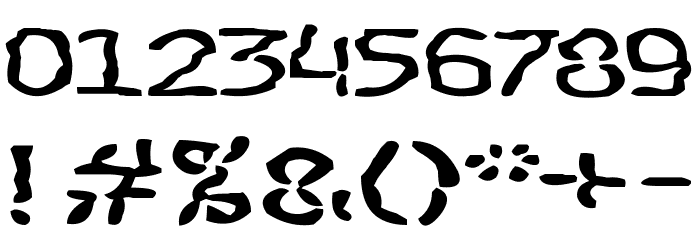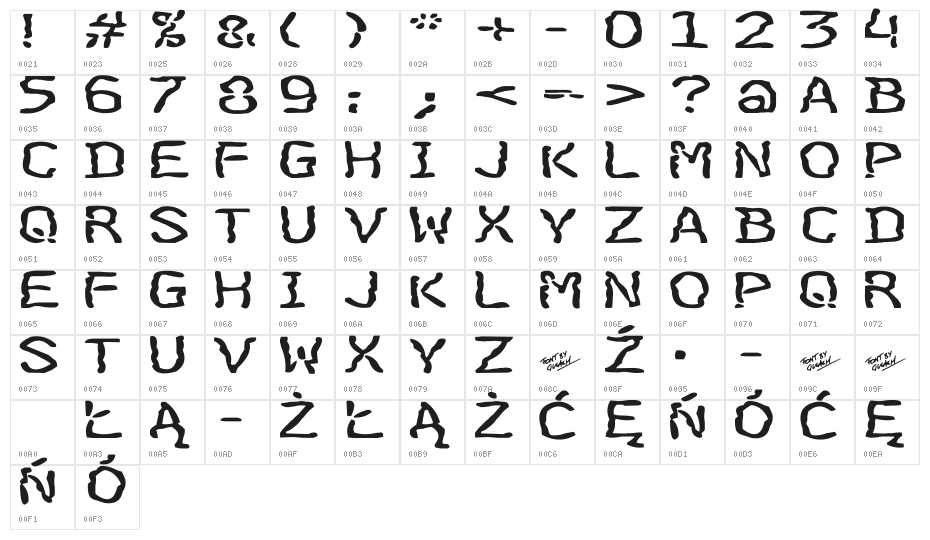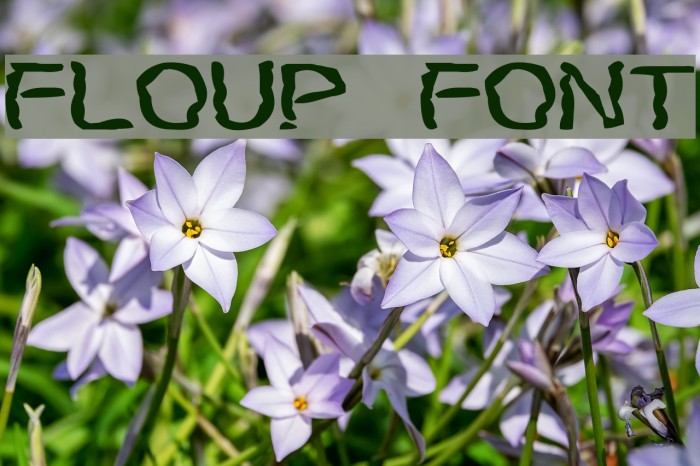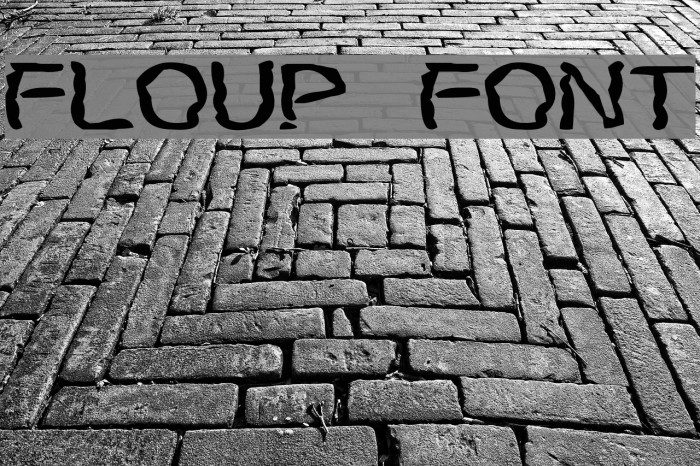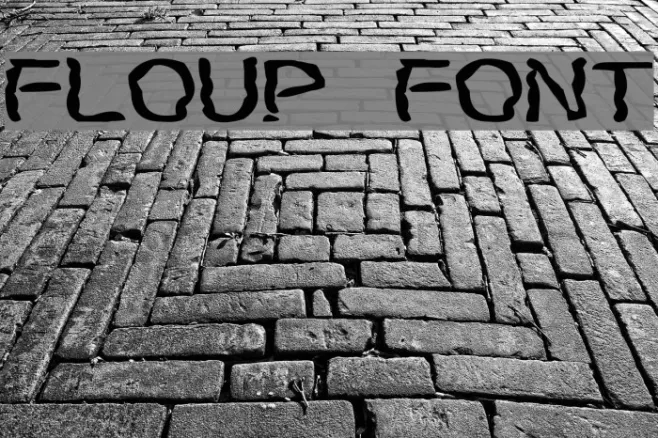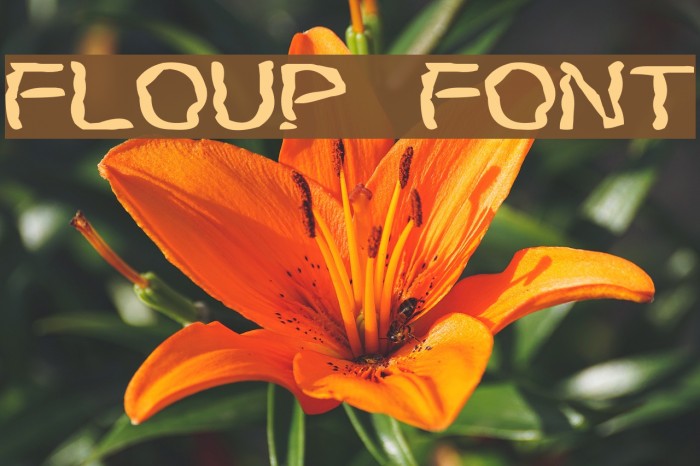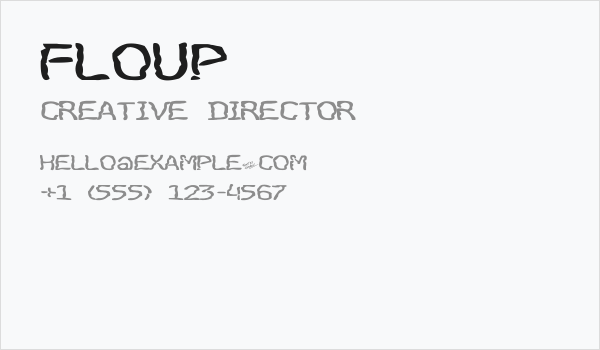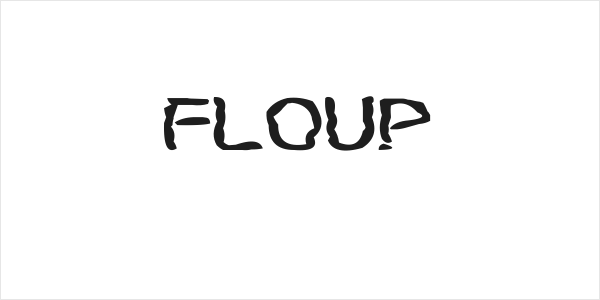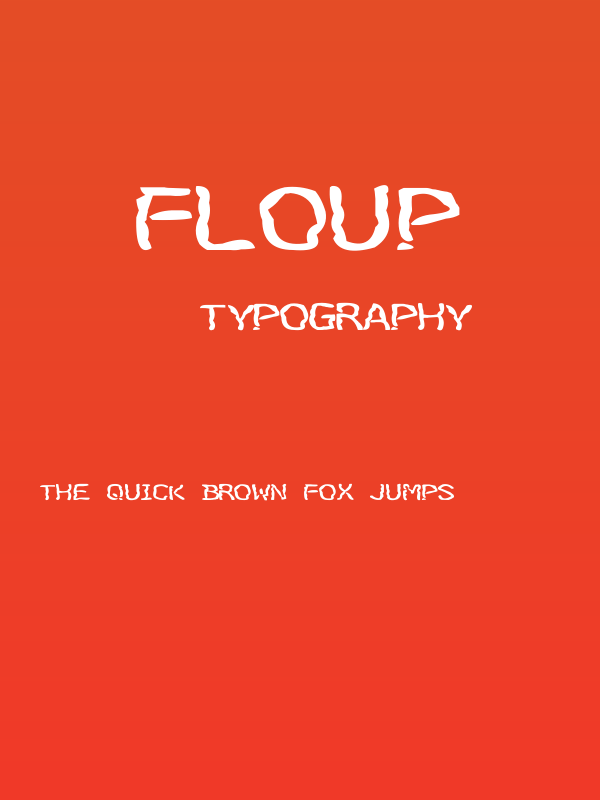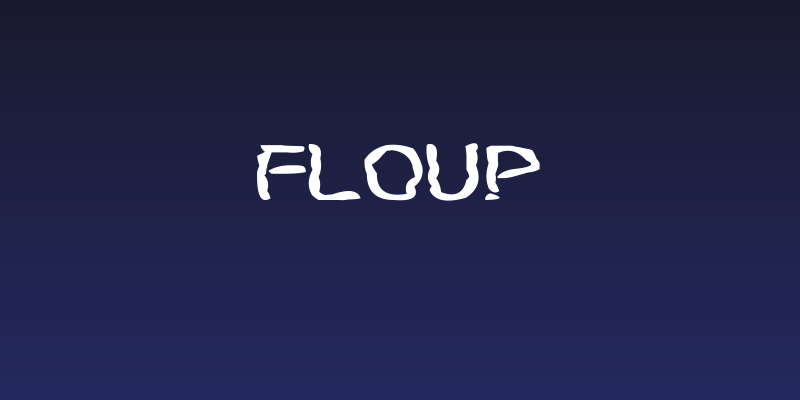
Floup Font
Floup Description
This font features a bold and playful design with a hand-drawn appearance. The characters have a unique, irregular shape that gives them a whimsical and artistic feel. The strokes are thick and uneven, adding to the font's distinctive style. The overall look is casual and informal, making it suitable for creative and fun projects. The uppercase and lowercase letters maintain a consistent style, with the numbers and special characters following the same design principles. This font is ideal for projects that require a touch of creativity and individuality.
Overall StylePlayful, Artistic
Use CaseHeadlines, Posters, Creative projects
Proposed ProjectsIdeal for children's books, creative posters, playful branding, and artistic designs.